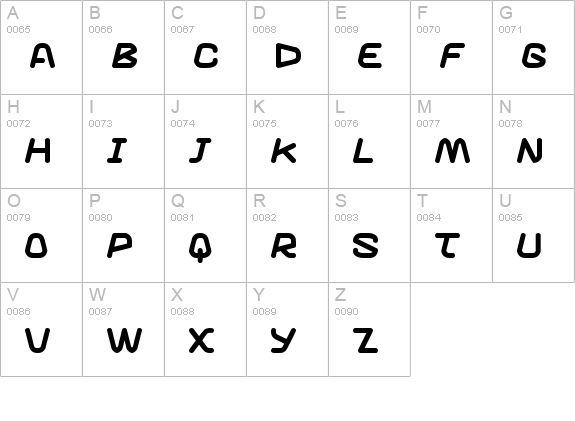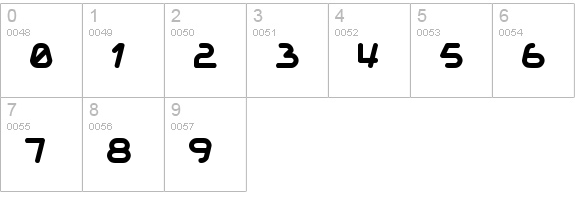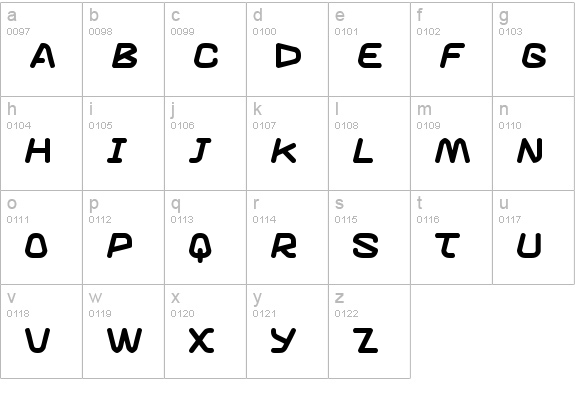
Knuckle sandwich Font Details
Knuckle Sandwich font is a bold and eye-catching typeface that exudes personality and charm. With its unique hand-drawn style and playful curves, this font is sure to make your designs stand out. Whether you're looking to add a touch of whimsy to your project or make a bold statement, Knuckle Sandwich font is the perfect choice. The best part? Knuckle Sandwich font is completely free to download at FontsMarket.com. That's right, you can add this fun and versatile font to your collection without spending a dime. So why wait? Download Knuckle Sandwich font today and let your creativity run wild!